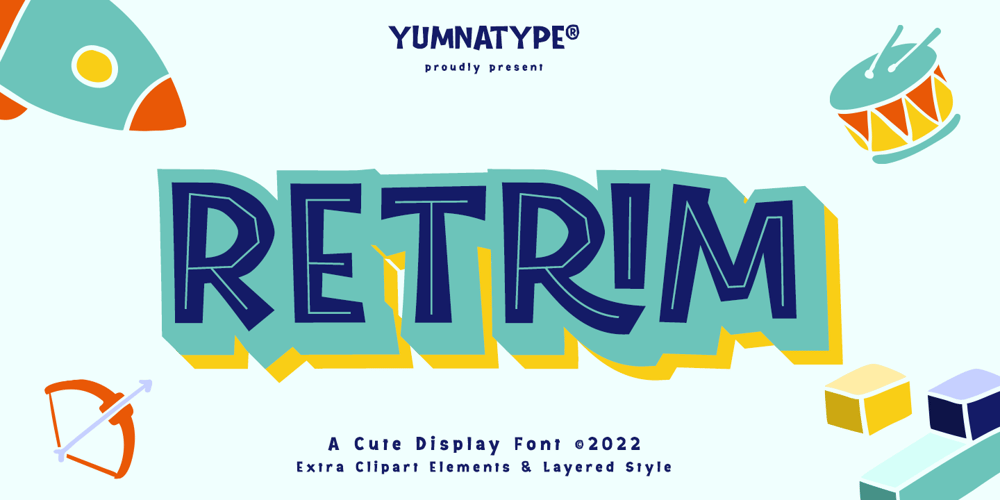
Retrim Font Family was designed by Donis Miftahudin and published by Yumna Type. Retrim contains 4 styles and family package options. Be the center of attention through your sophisticated design with the awesome Retrim. It is a display font that portrays cute looks. While it’s easy to read thanks to all-capped characters, there are also distinctive styles or layers for optical effect. Slay your design with Retrim’s best features so you’ll look your best on what ever your design is, all the time. You also get 15 illustrations as special extra that you can use as you wish. Features: Ligatures Multilingual Supports Uppercase and lowercase PUA Encoded Numerals and Punctuation This font would looks great on your branding, logos, social media quotes, stickers, posters, wall art, merchandise, social media, and many more. Get more inspiration about how to use it by seeing the font preview.Thank you for purchasing our fonts. If you have any further questions, don’t hesitate to contact us. Happy Designing.